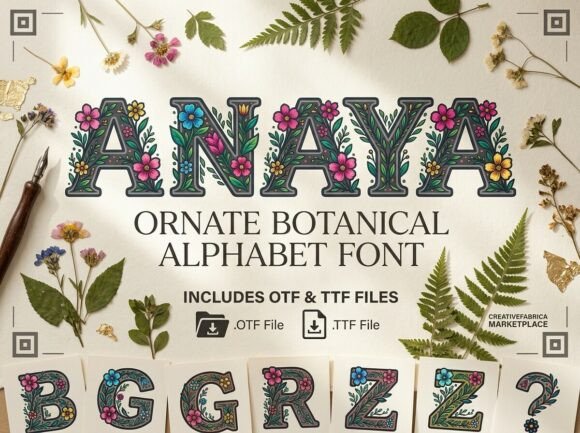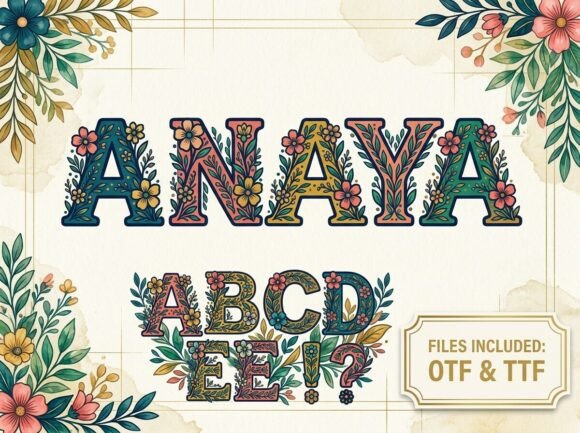
Introducing Anaya Font: The Ultimate Decorative Serif for Floral Enthusiasts
Are you a designer or crafter looking for a unique and stunning font to elevate your creative projects? Look no further than Anaya Font, a breathtaking decorative serif that will transform your text into a lush, blooming garden. With its intricately illustrated vibrant flowers and flowing botanical stems, Anaya is the perfect choice for springtime branding, high-end nursery decor, greeting cards, and nature-themed editorial headlines.
The Beauty of Anaya Font
Anaya Font is a hand-crafted masterpiece, with each letter carefully designed to showcase a rich color palette and bold outlines that ensure legibility despite the high level of detail. The font’s decorative serif style is intricately illustrated with vibrant flowers and flowing botanical stems, creating a truly unique and eye-catching effect.
Whether you’re designing a logo, creating a social media post, or crafting a greeting card, Anaya Font is sure to impress. Its stunning floral design will add a touch of elegance and sophistication to any project, making it perfect for designers and crafters who want to create something truly special.
Perfect for Springtime Branding and Nursery Decor
As the seasons change and spring arrives, Anaya Font is the perfect choice for branding and design projects that celebrate the beauty of nature. Its vibrant flowers and lush greenery evoke the feeling of a blooming garden, making it ideal for:
- Springtime branding and packaging
- High-end nursery decor and children’s products
- Nature-themed editorial headlines and magazine covers
Key Features of Anaya Font
So what makes Anaya Font so special? Here are just a few of its key features:
- Intricately illustrated design: Each letter is carefully hand-crafted with vibrant flowers and flowing botanical stems.
- Rich color palette: Anaya Font features a stunning range of colors that evoke the beauty of nature.
- Bold outlines: The font’s bold outlines ensure legibility even at small sizes.
- Hand-crafted masterpieces: Each letter is a unique work of art, carefully crafted to create a truly stunning effect.
Tips for Using Anaya Font
To get the most out of Anaya Font, here are a few tips to keep in mind:
- Use it sparingly: Anaya Font is a statement font, so use it sparingly to add impact to your design.
- Experiment with colors: Try out different color combinations to find the perfect match for your project.
- Pair it with a simple font: Balance out Anaya Font with a simple, clean font to create visual interest.
| Font Name | Anaya Font |
| Author | Raholco |
Anaya Font is a truly unique and stunning decorative serif that will elevate your design projects to new heights. With its intricately illustrated floral design, rich color palette, and bold outlines, it’s the perfect choice for designers and crafters who want to create something special. Whether you’re designing for springtime branding, high-end nursery decor, or nature-themed editorial headlines, Anaya Font is the ultimate choice.